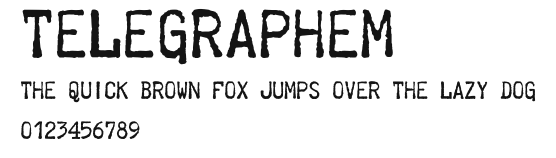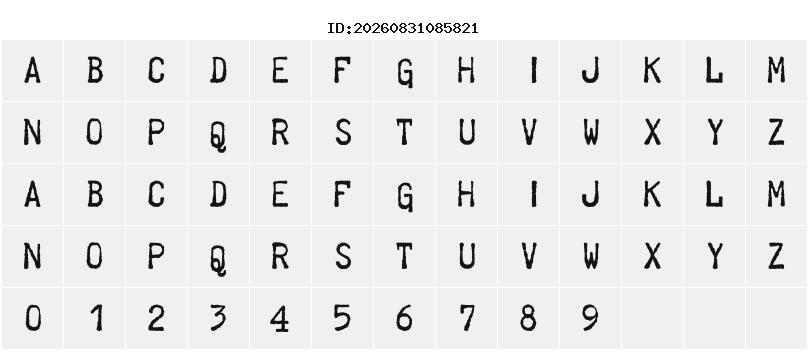
Telegraphem Preview
• Font Name: Telegraphem
• Full Font Name: Telegraphem
• Manufacturer: Volker Busse
About Telegraphem.otf
Telegraphem.otf is a modern, elegant sans-serif font designed for ultimate readability and visual harmony. Perfect for branding, headlines, web design, and print materials.